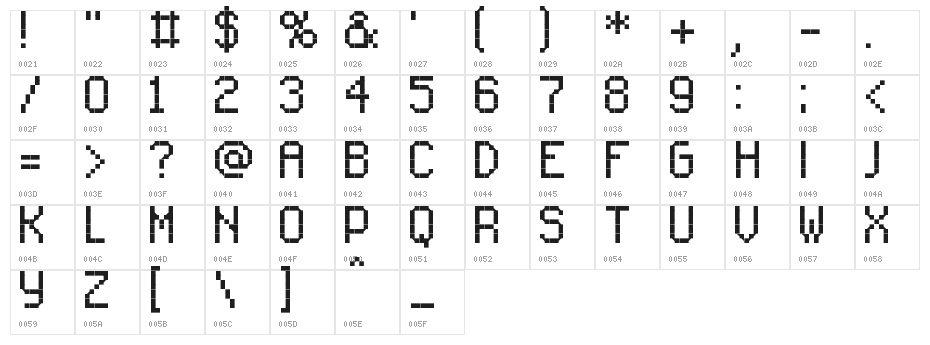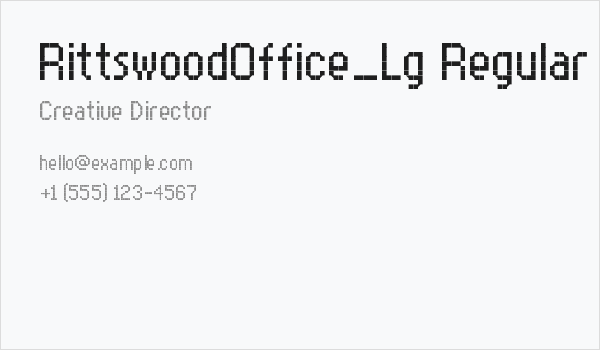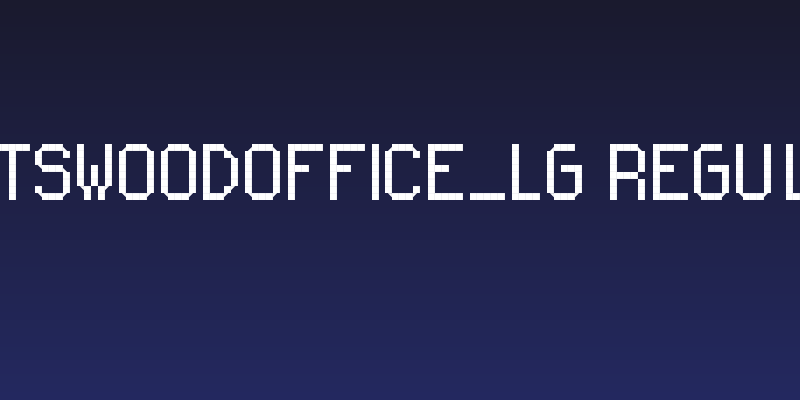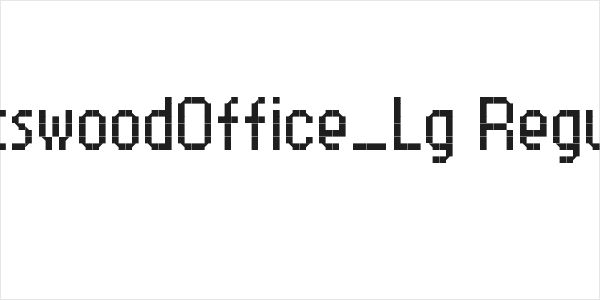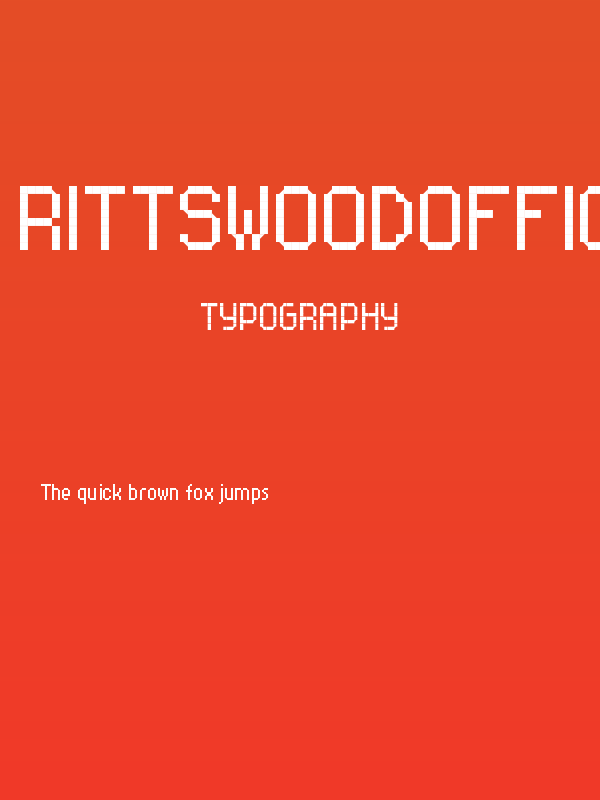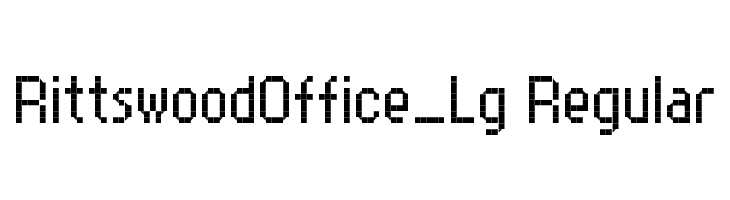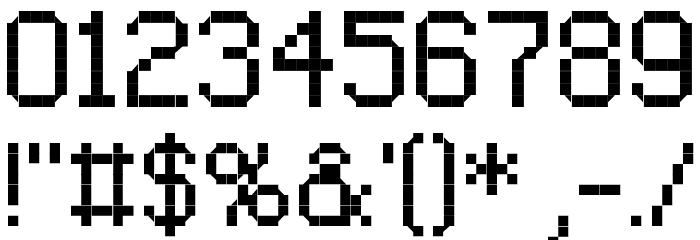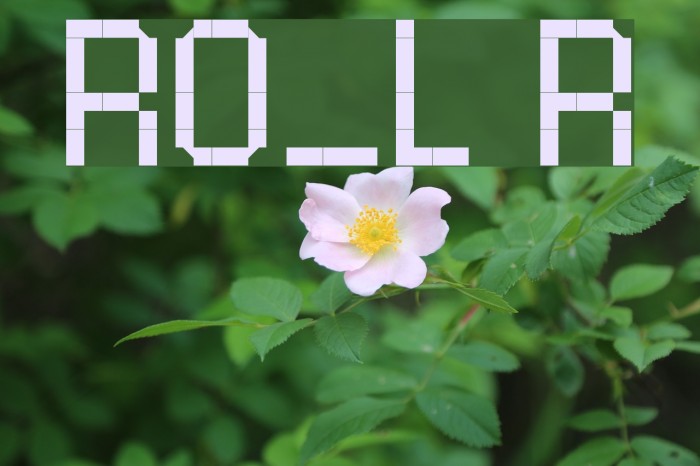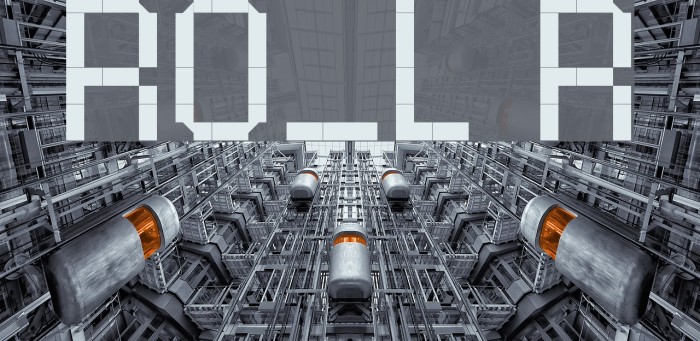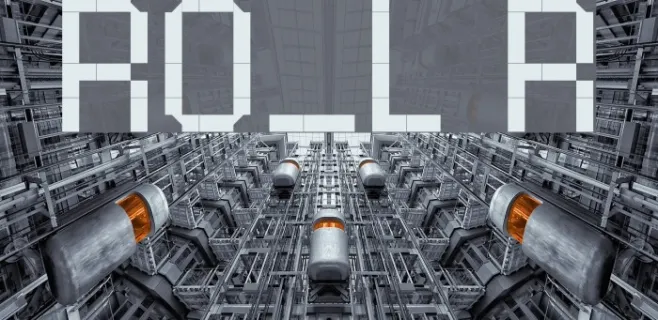
RittswoodOffice_Lg Regular Font
RittswoodOffice_Lg Regular Description
This font features a distinct pixelated style, reminiscent of early digital displays and retro video games. Each character is constructed with a grid-like pattern, giving it a blocky and geometric appearance. The uppercase and lowercase letters maintain a consistent height, contributing to a uniform look. Numbers and special characters follow the same pixelated design, ensuring a cohesive aesthetic throughout. The font's unique style makes it stand out, ideal for projects that require a vintage or tech-inspired theme.
| Overall Style | Vintage |
| Use Case | Logos, Headlines, Posters |
| Proposed Projects | Ideal for retro video game designs, digital art projects, tech-themed posters, and any creative work that requires a vintage digital look. |